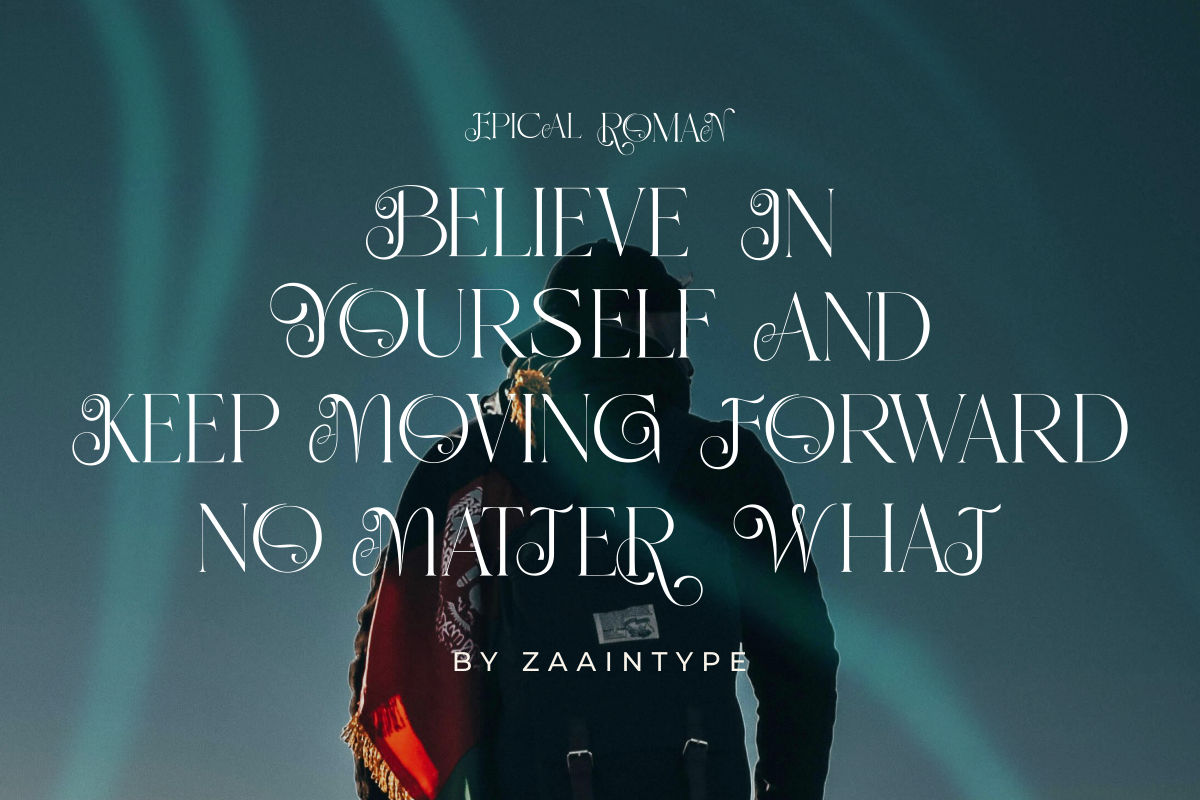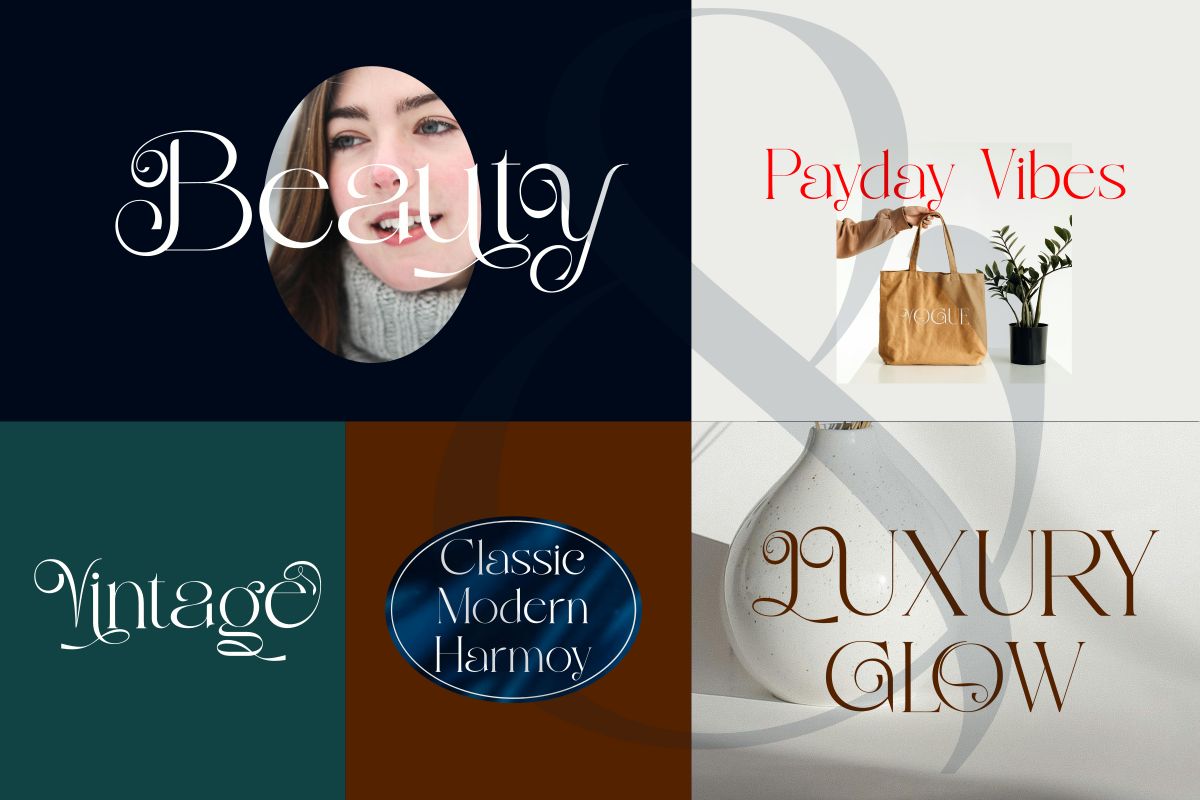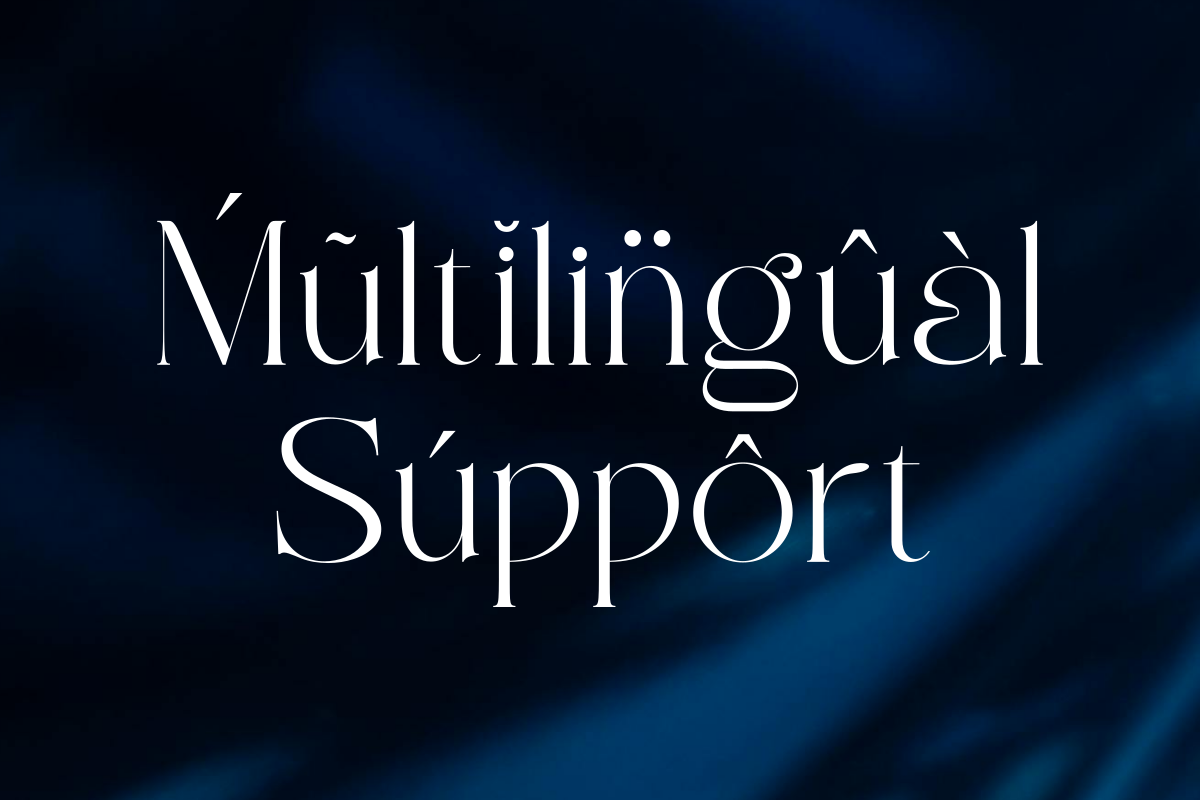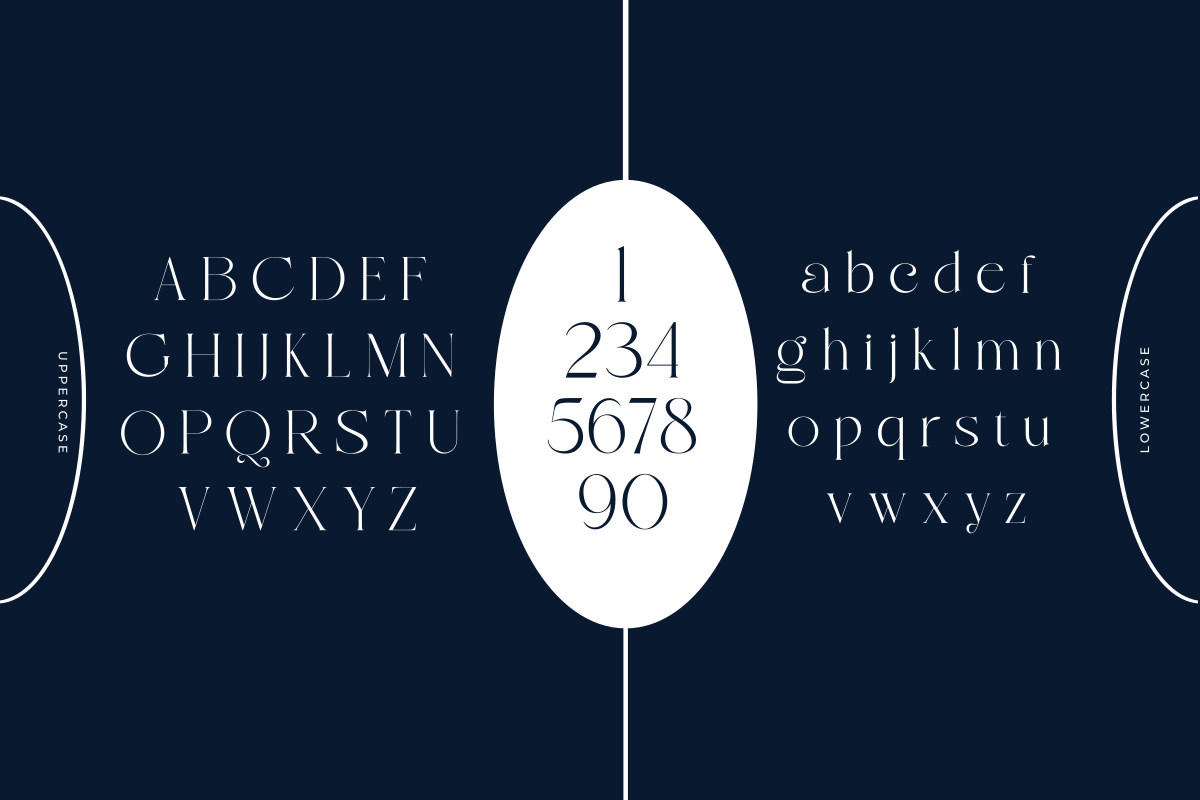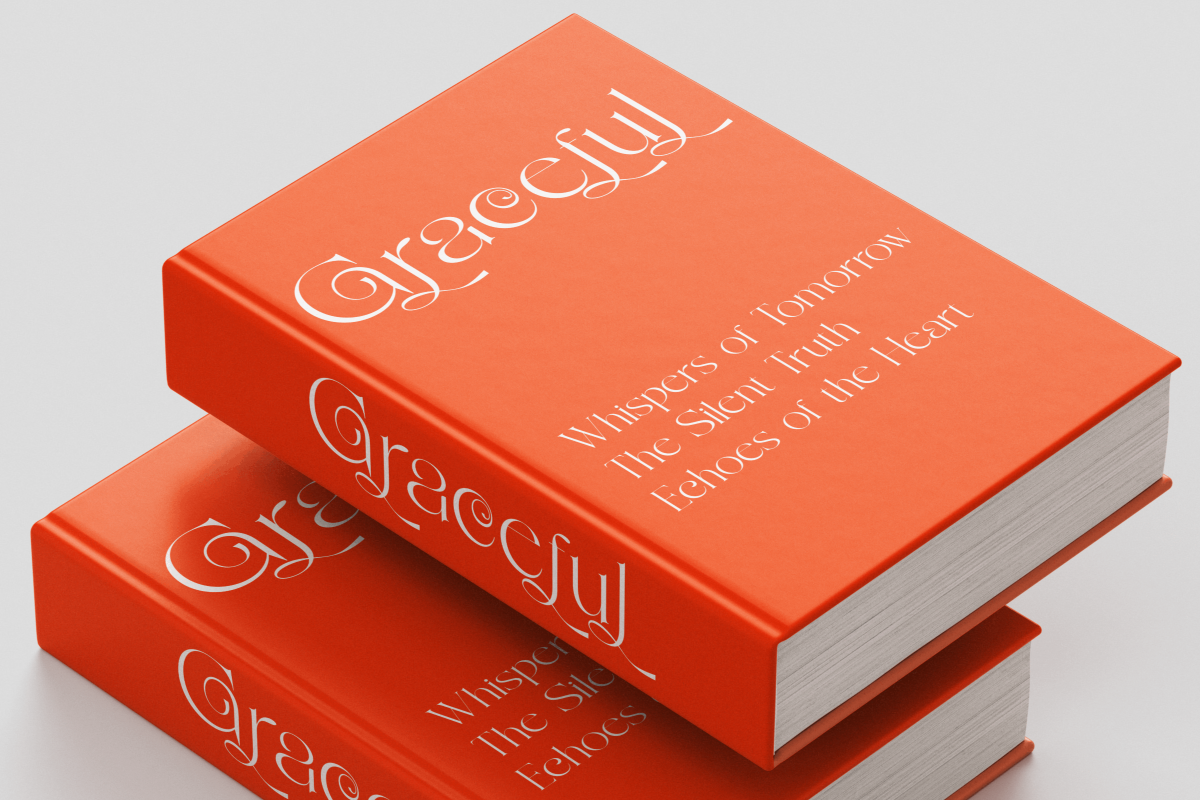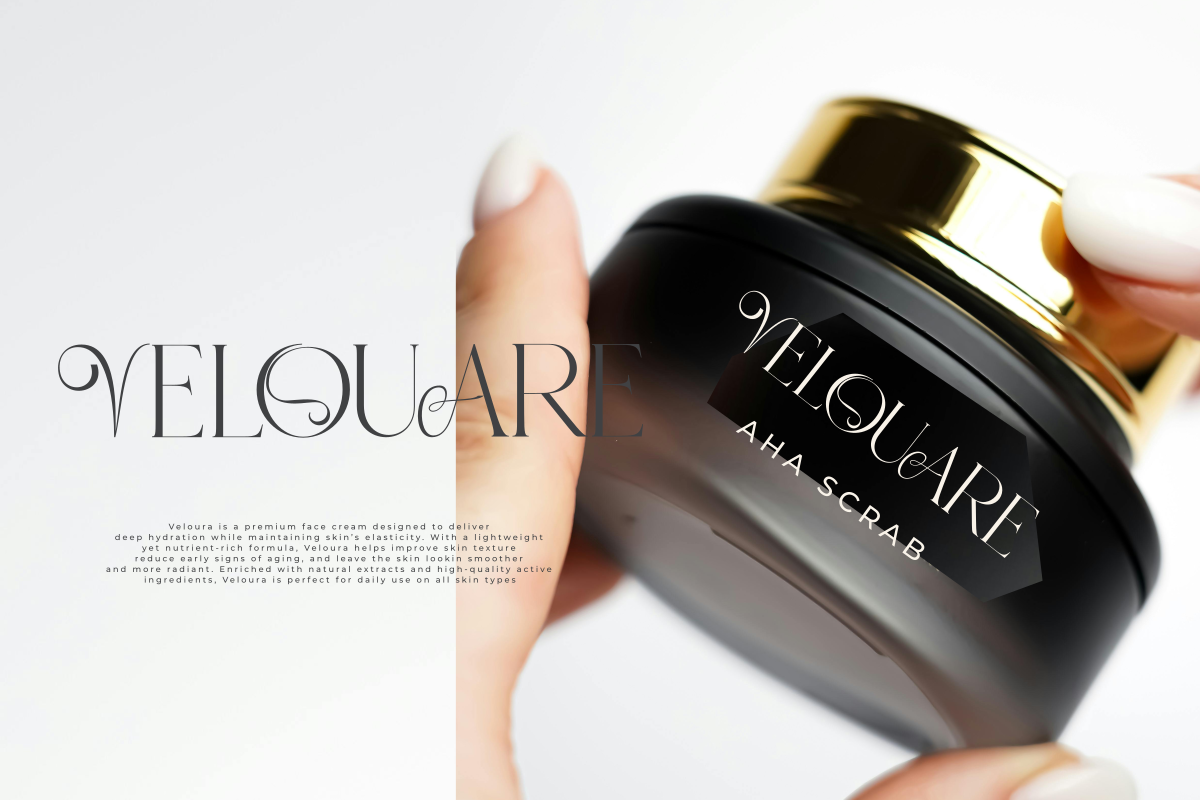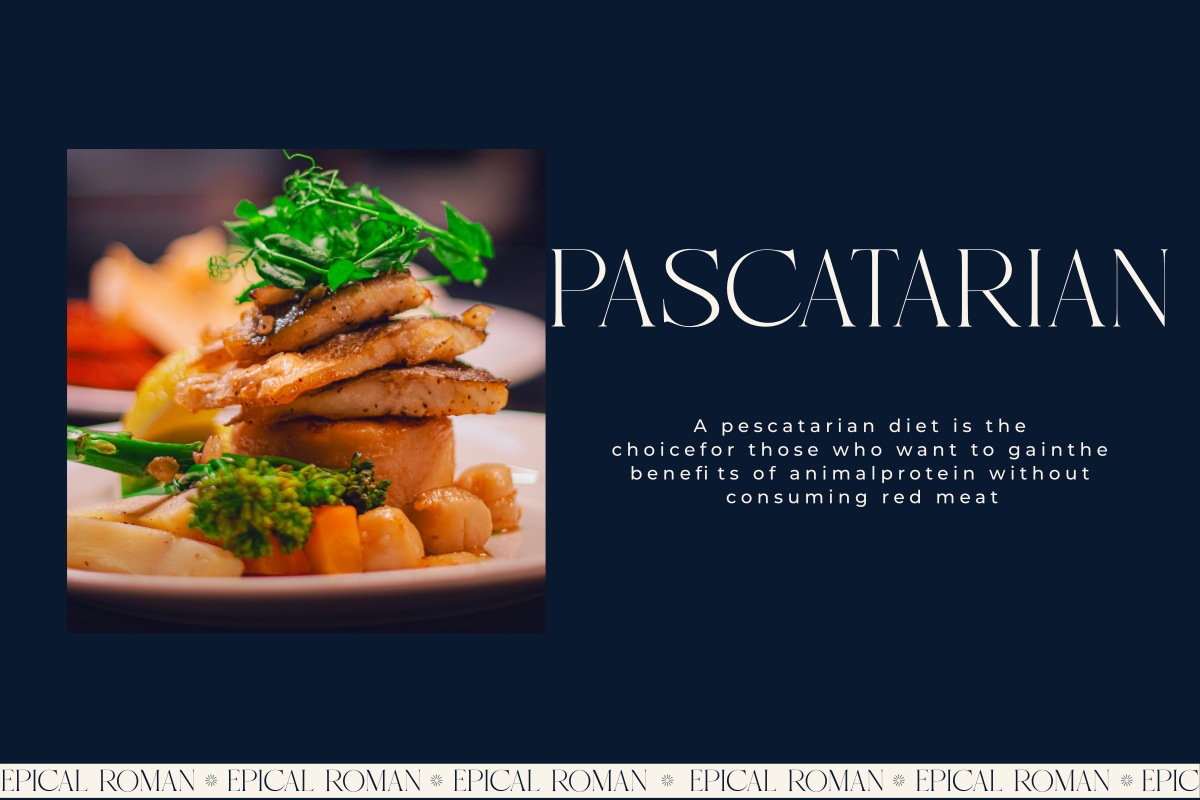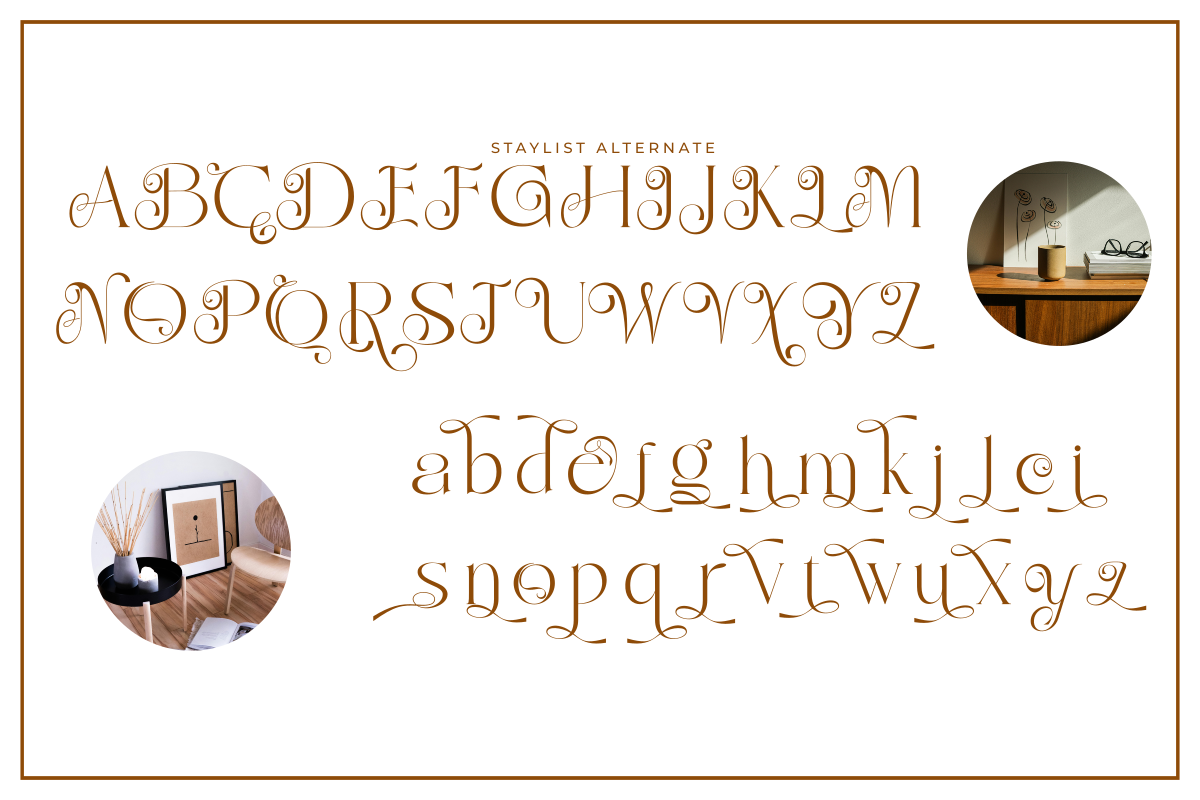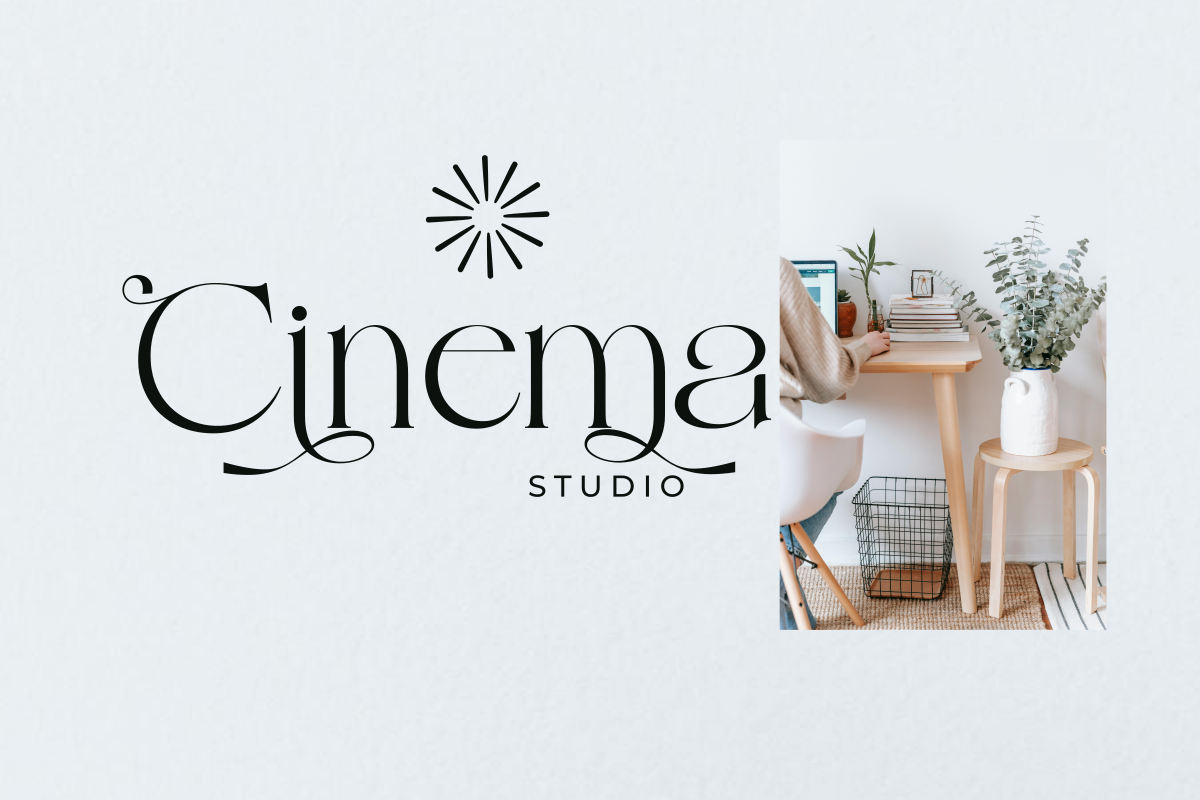
Epical Roman
Epical Roman is a timeless serif font that blends classical elegance with modern refinement. Featuring balanced proportions, delicate serif details, and graceful contrast, it brings a sense of authority and sophistication to any design. Perfect for editorial layouts, book covers, luxury branding, and projects that seek a touch of tradition with a contemporary feel. Its refined letterforms offer both readability and beauty, making Epical Roman an ideal choice for designers who want to elevate their typography with strength and elegance